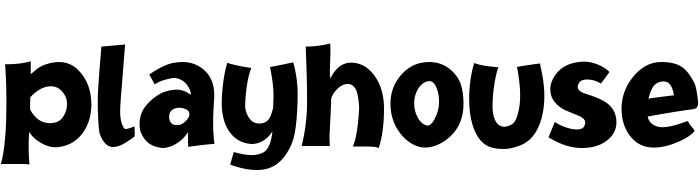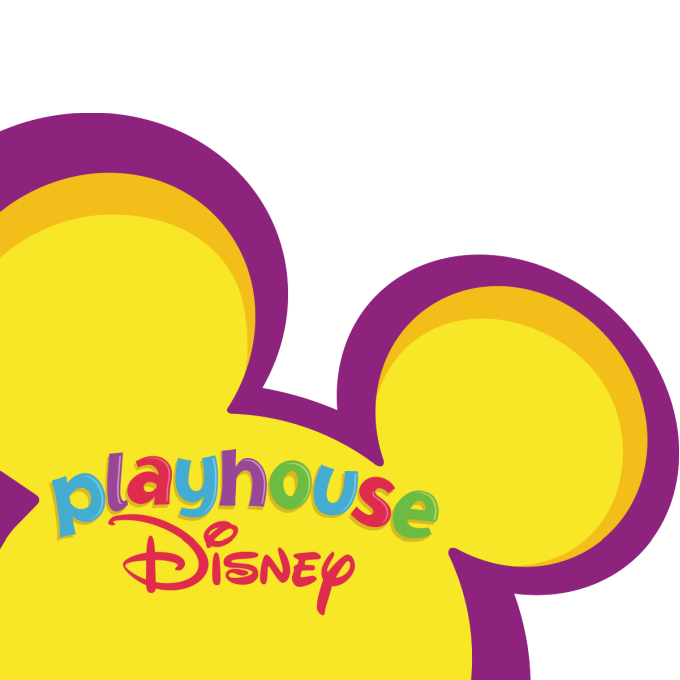
Playhouse Disney Font
Fonts in UsePlayhouse Disney was a children's television channel owned by Disney that aired programming aimed at preschool-aged children. It featured a variety of shows, including animated and live-action series, as well as educational programming. However, it was rebranded as Disney Junior in 2011.
The font utilized for creating the Playhouse logo is called Jacoby Black, which belongs to the display sans-serif category and was designed by Calvin Glenn and released by Image Club. You can learn more about the font family here.